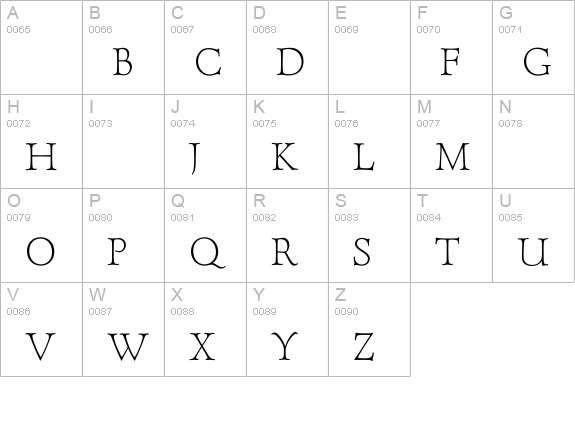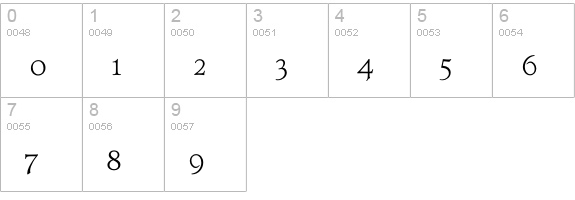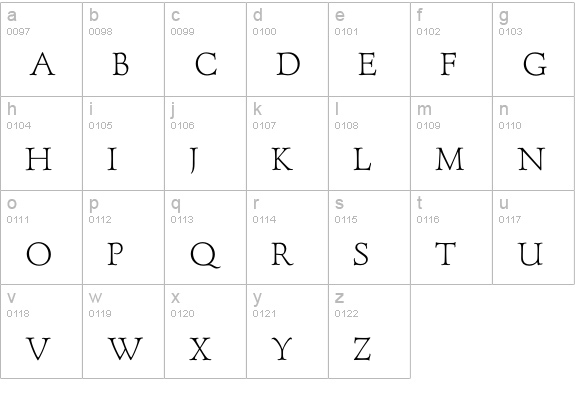
ForumTitlingLightOldStyleFigs font is a sophisticated and elegant typeface that exudes a sense of timeless charm. Its delicate lines and old-style figures give it a classic and refined appearance, making it perfect for adding a touch of sophistication to any design project. This font is versatile and can be used for a wide range of purposes, from elegant invitations to stylish branding. The best part? ForumTitlingLightOldStyleFigs font is available for free download at FontsMarket.com. Now you can elevate your design projects with this beautiful font without any cost. Don't miss this opportunity to enhance your creations with the grace and elegance of ForumTitlingLightOldStyleFigs font. Download it today and let your designs shine with sophistication and style.